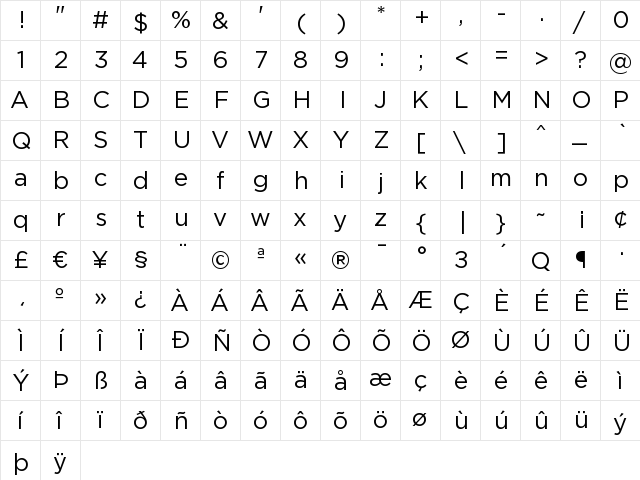
Gotham HTF Book Regular
Design Context for Gotham HTF Book Typeface
Gotham HTF Book takes a measured approach to typography — its balanced proportions and neutral character make it a reliable workhorse for both digital and print work.